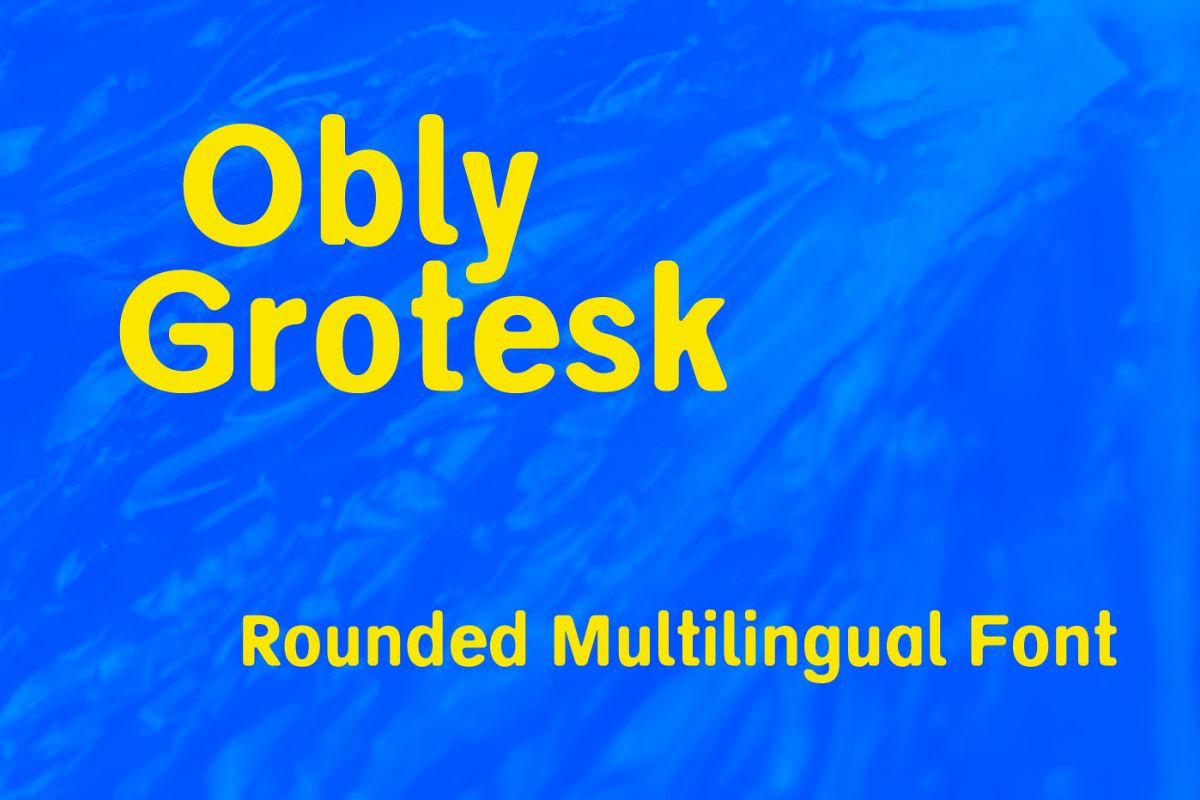
Obly Grotesk
Obly Grotesk is friendly and warm display font. Obly has nice smoothly rounded terminals. It makes you wanna cuddle with it or eat ice cream.
Is most suitable for headlines of all sizes, but also applicable for any type of graphic design in print, web or animations. Perfect for apparel, posters, and logos.
Did I mention it is also multilingual? Obly is.
Obly likes you, do you like Obly?